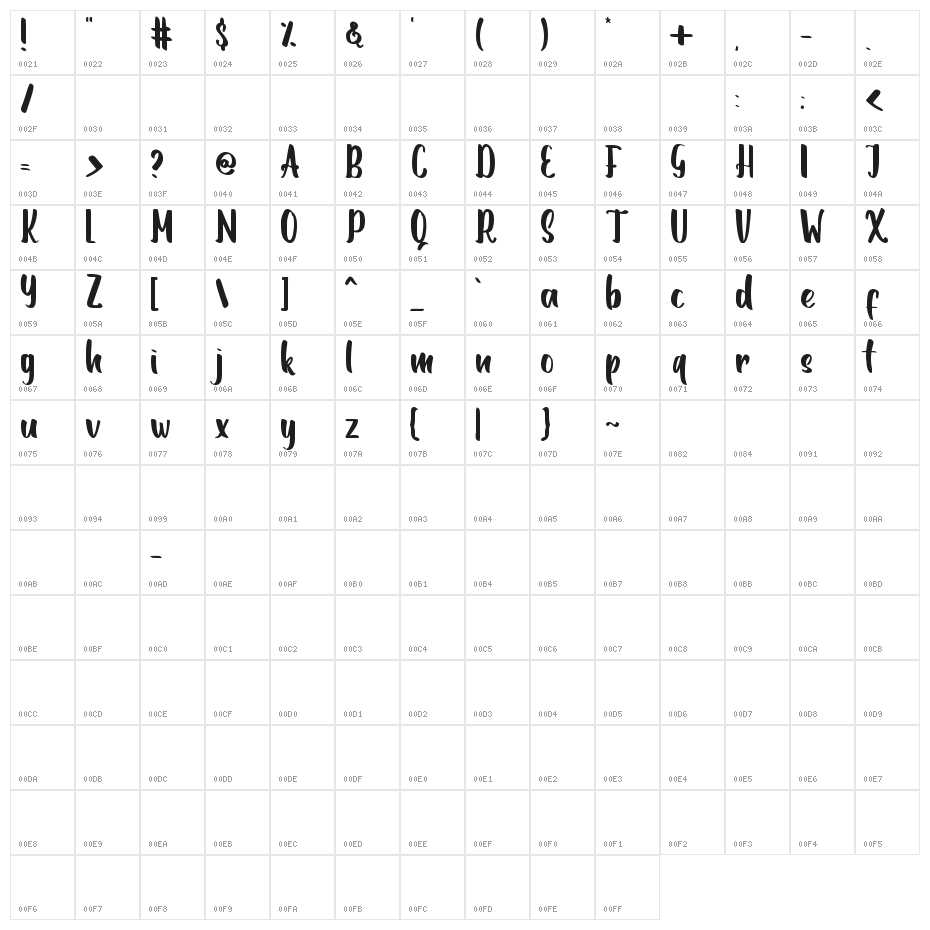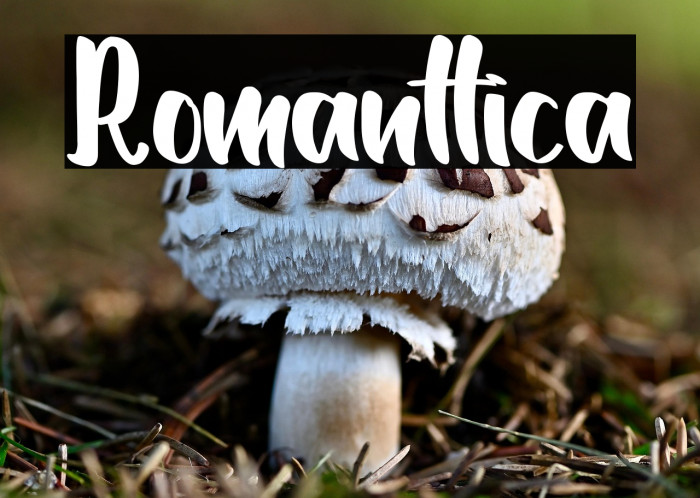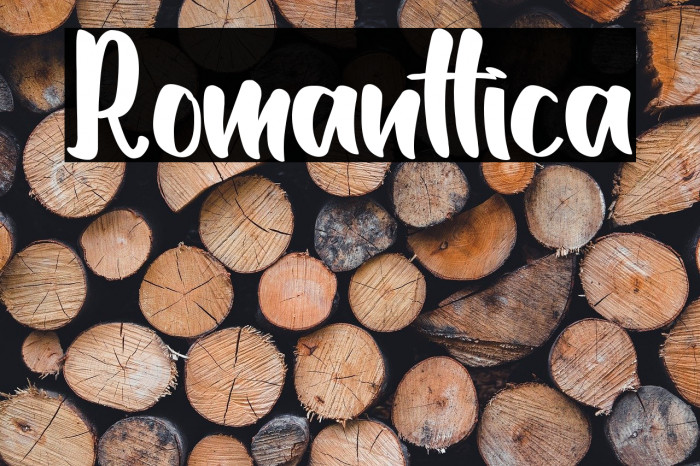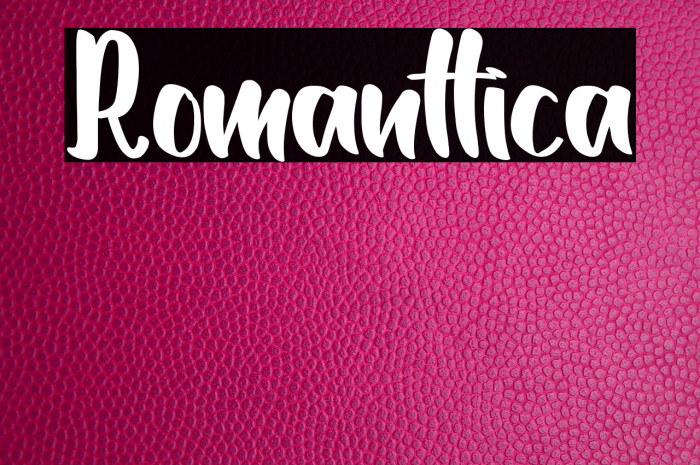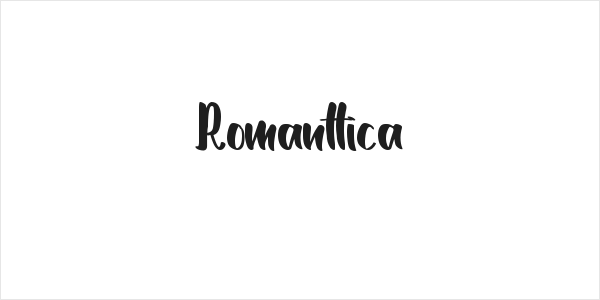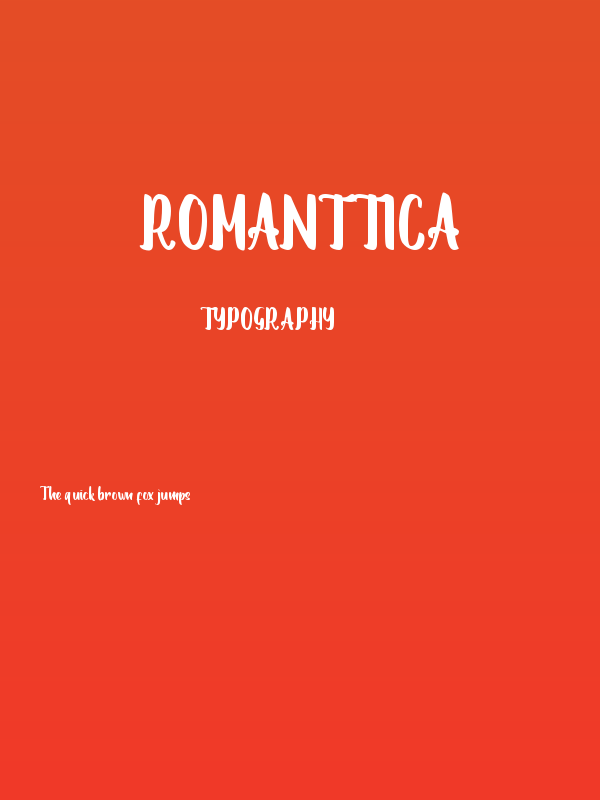
Romanttica Font
Romanttica Description
This font features a bold and expressive style with a handwritten appearance. The characters are crafted with a playful and dynamic flair, showcasing thick strokes and smooth curves. The uppercase letters are tall and commanding, while the lowercase letters maintain a consistent flow, enhancing readability. The font includes a variety of special characters, adding versatility to its use. Its bold presence makes it suitable for projects that require a strong visual impact, such as branding, posters, and creative designs.
| Proposed Projects | Ideal for branding, posters, invitations, and creative design projects. |